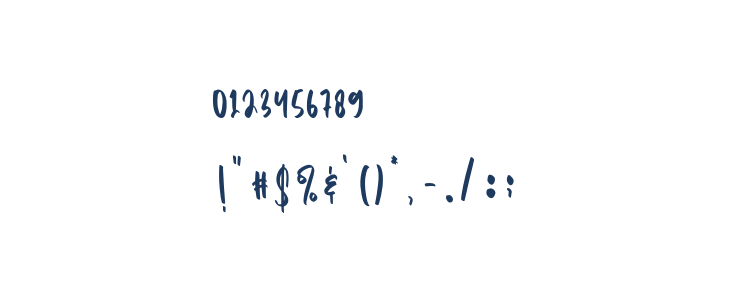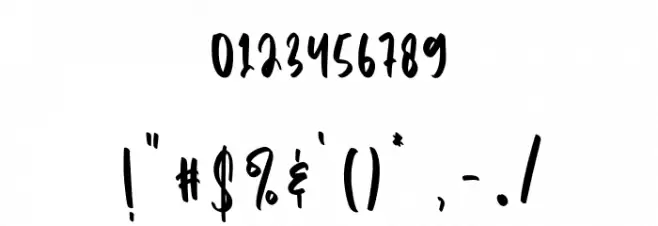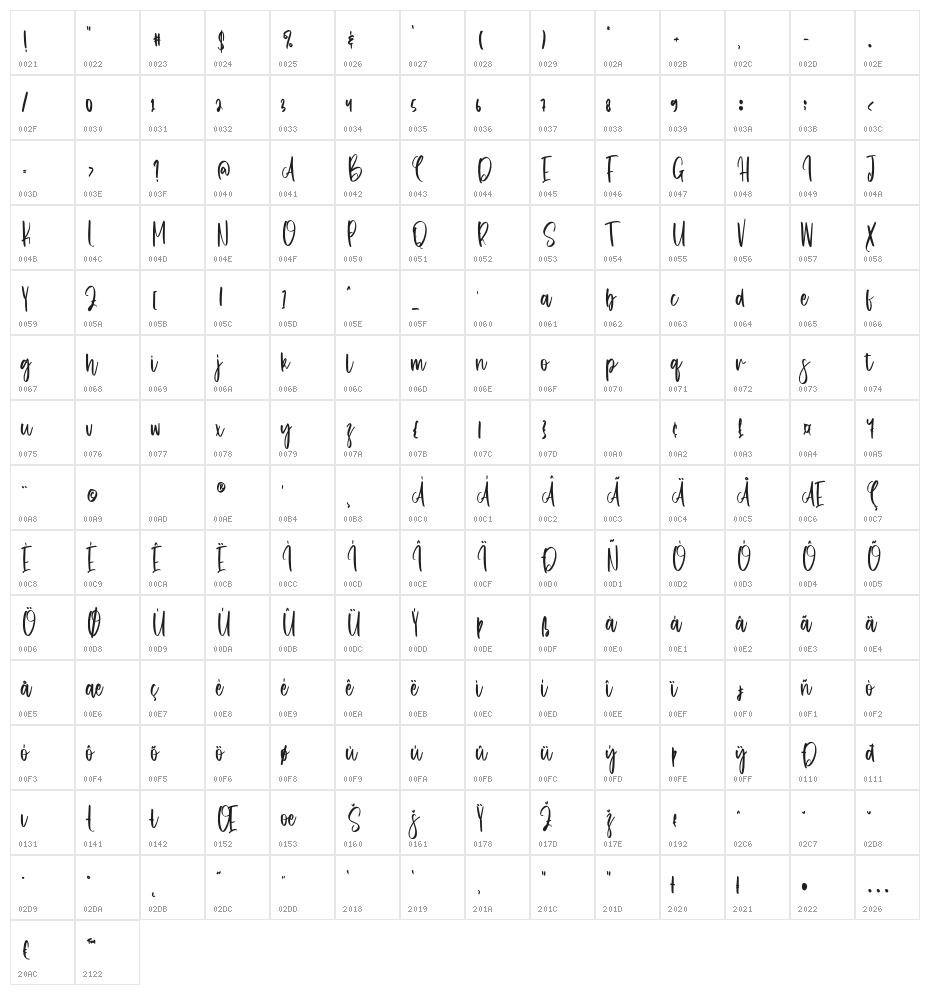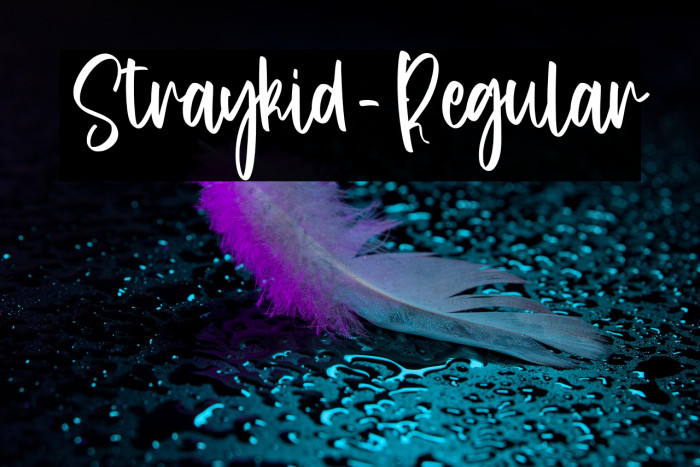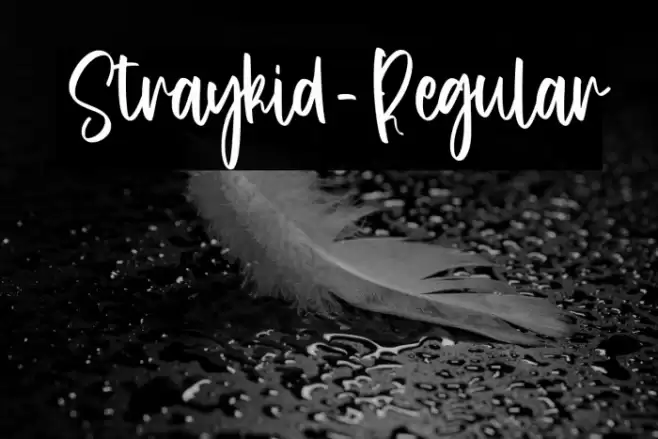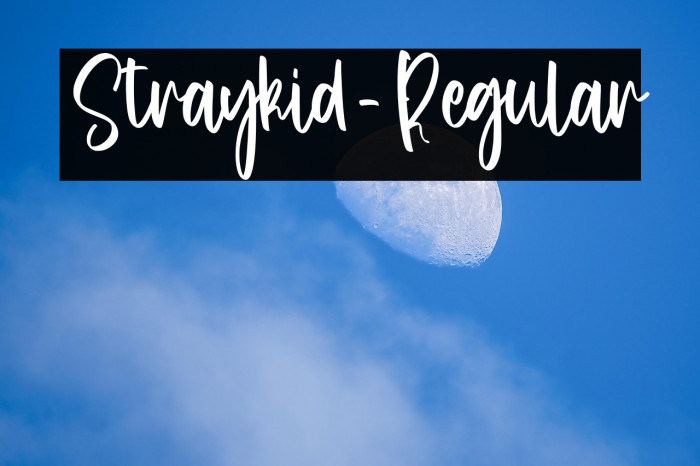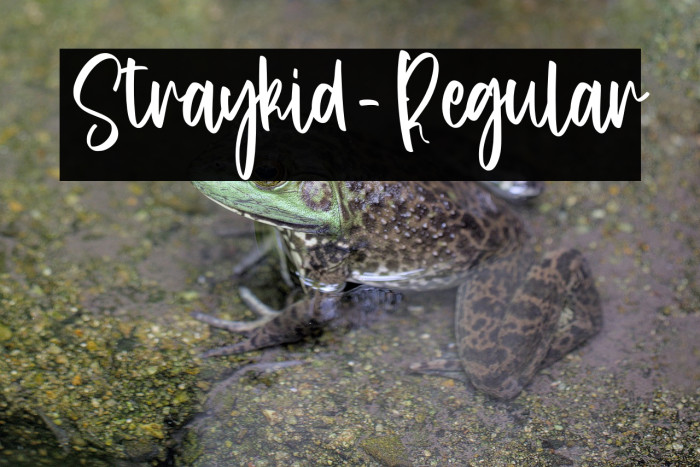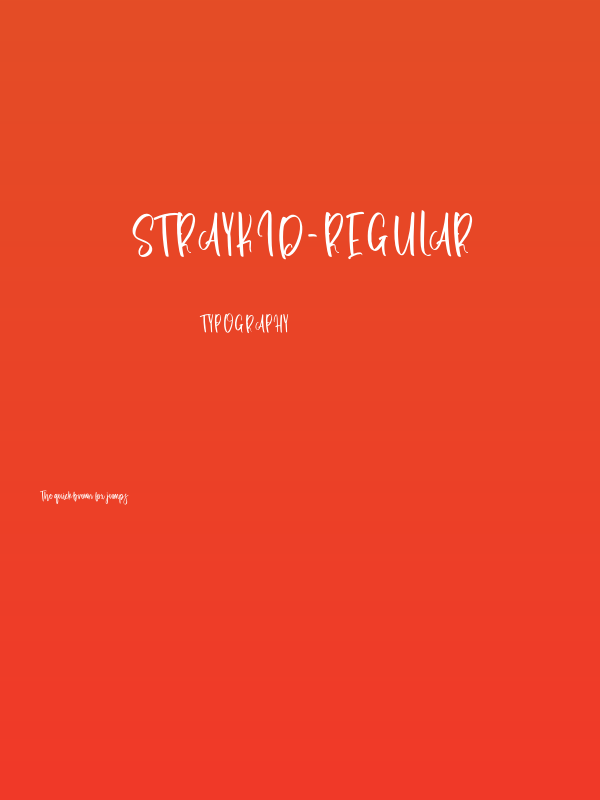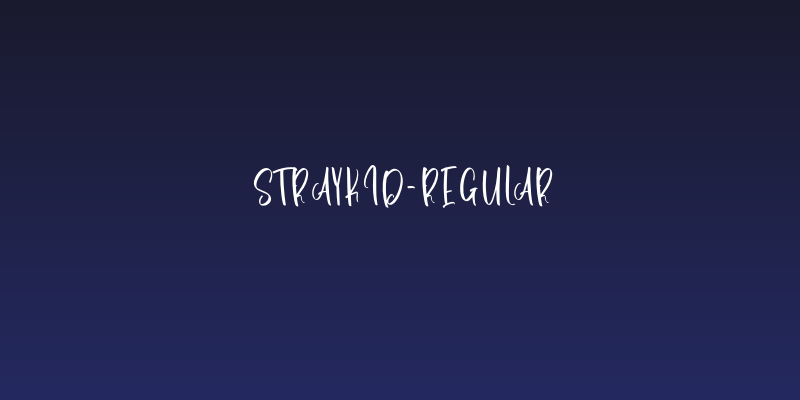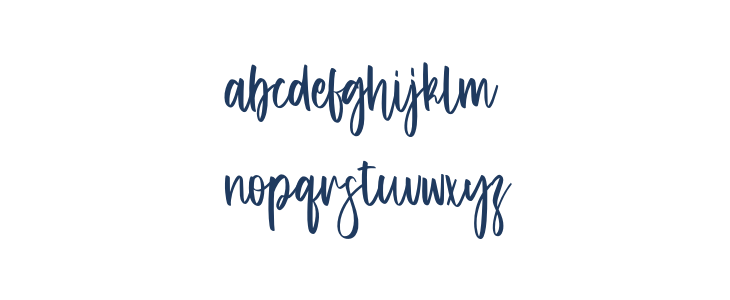
Straykid-Regular Font
Straykid-Regular Description
This font features a playful and energetic handwritten style, characterized by its flowing and dynamic letterforms. The uppercase letters are bold and expressive, with a slight slant that adds to the casual and informal feel. The lowercase letters maintain a consistent style, with smooth curves and a lively rhythm. The numbers and special characters are designed to complement the overall aesthetic, ensuring a cohesive look across all text elements. This font's unique personality makes it ideal for projects that require a touch of creativity and individuality.